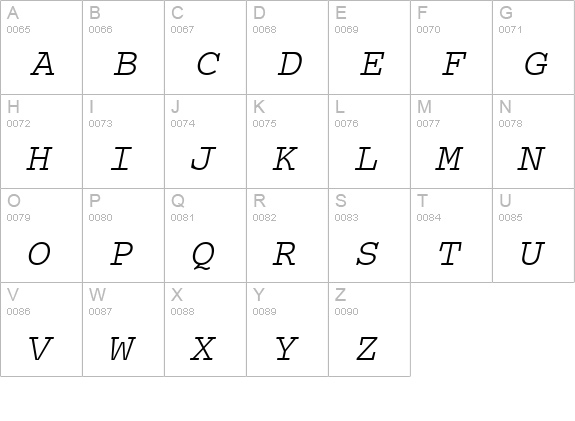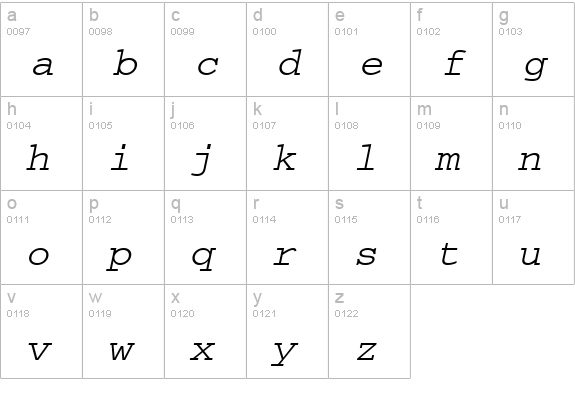
CourierPS Oblique is a distinctive, italic variant in the CourierPS typeface family \xE2\x80\x94 well suited to design and typography projects.
CourierPS Oblique is a sleek and stylish font that adds a touch of sophistication to any design project. With its slanted appearance, this font exudes a sense of modernity and professionalism. Perfect for conveying a sense of urgency or efficiency, CourierPS Oblique is ideal for use in logos, branding, posters, and more. Best of all, CourierPS Oblique is available for free download at FontsMarket.com. Whether you're a designer looking to elevate your projects or a business owner in need of a polished font for your marketing materials, CourierPS Oblique is a versatile choice that will make your text stand out. Download it today and add a touch of elegance to your designs.